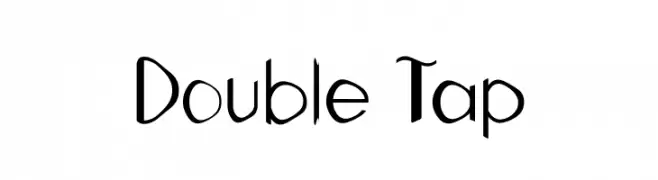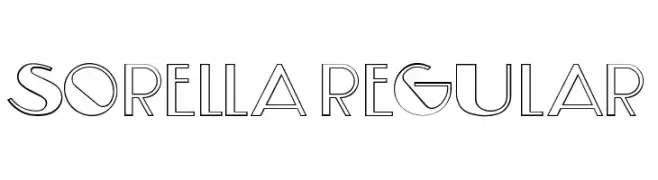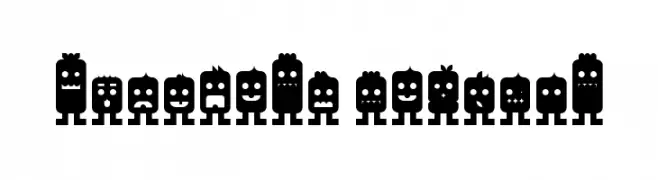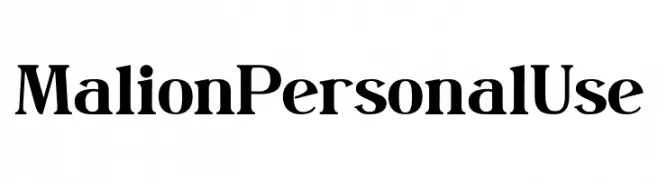
A playful, robot-themed decorative font with unique character designs.
A playful, modern font with bold, dynamic shapes and artistic flair.
A futuristic, hollow, geometric font with sharp, angular lines.
A modern, geometric font with clean lines and a minimalist aesthetic.
A whimsical and quirky font with playful curves and uneven strokes.
A playful, monster-themed decorative font with unique character designs.
A playful, handwritten font with smooth, rounded strokes and a casual feel.
A light, modern font for Bengali script, ideal for digital interfaces.
A bold serif font with strong vertical lines and sharp serifs, offering a classic yet modern look.